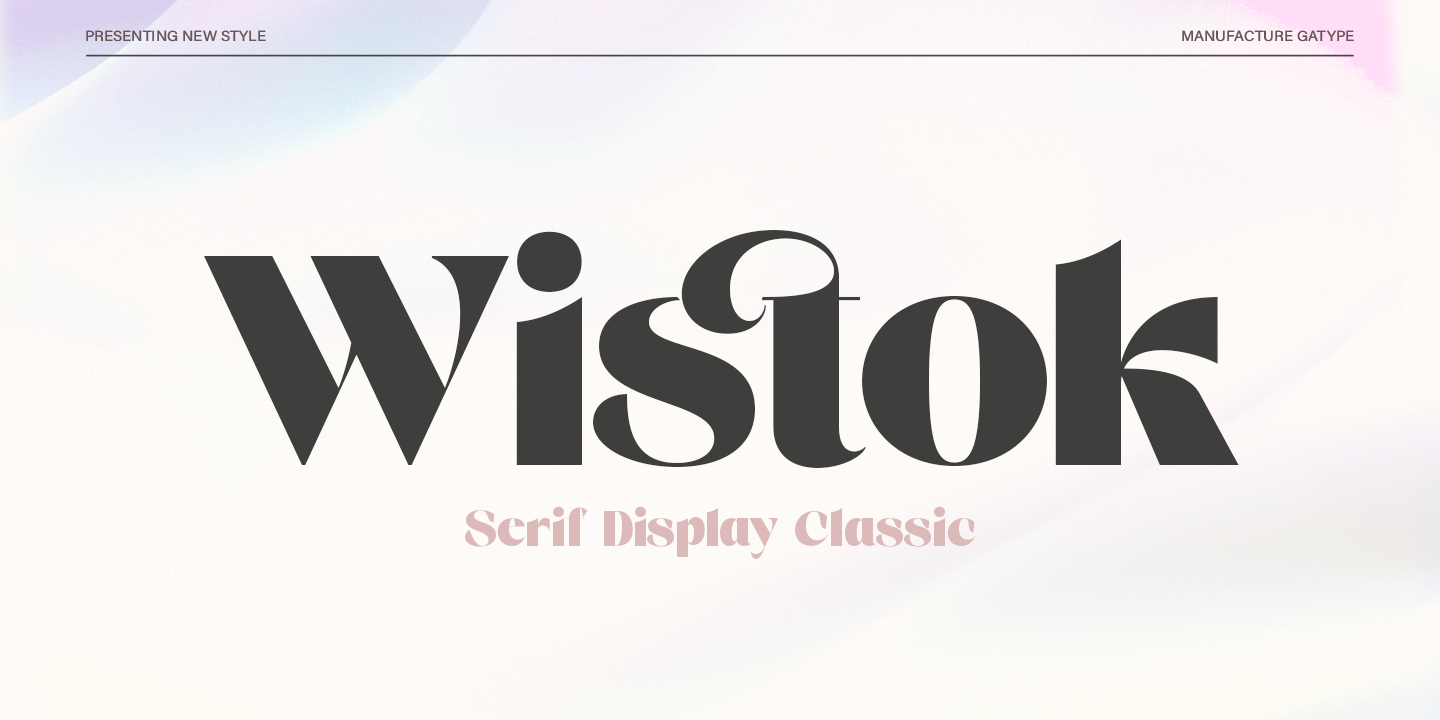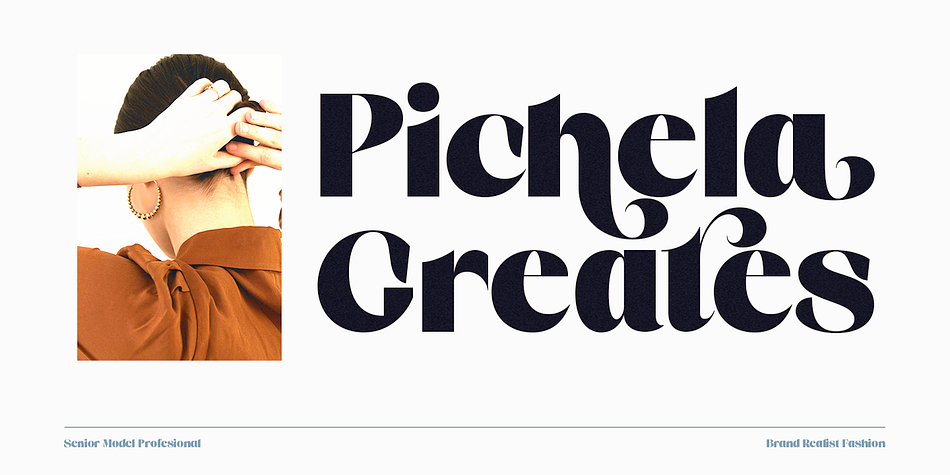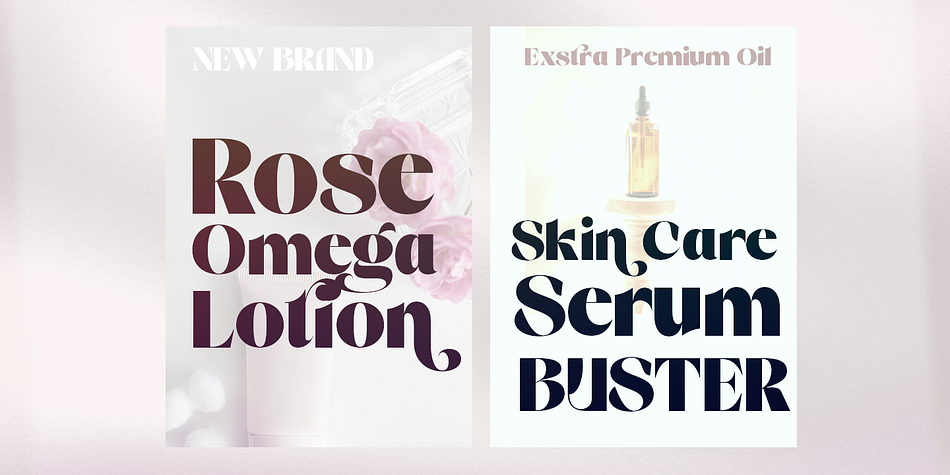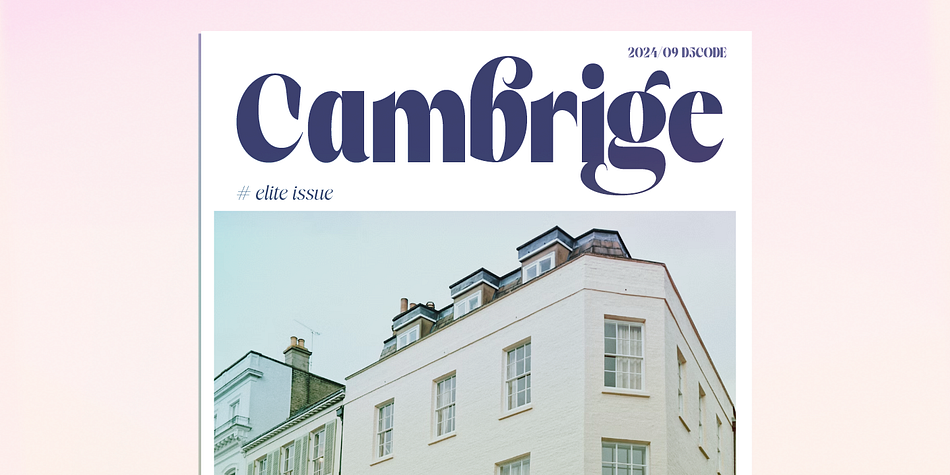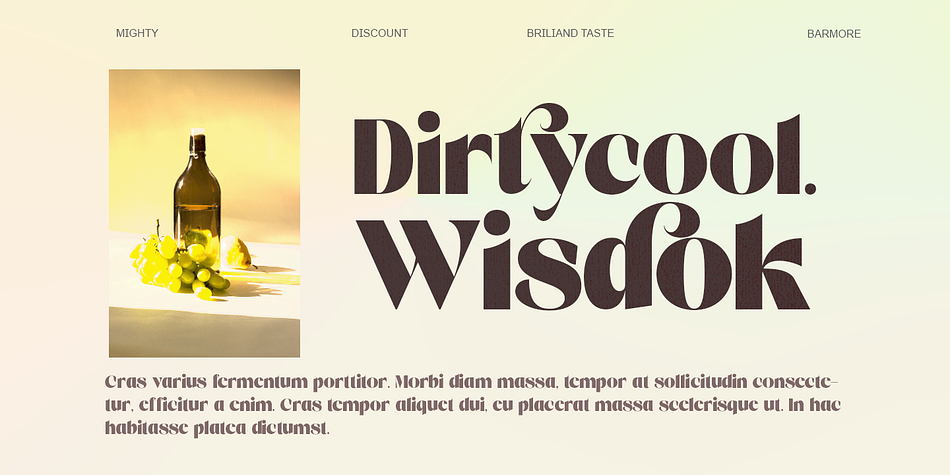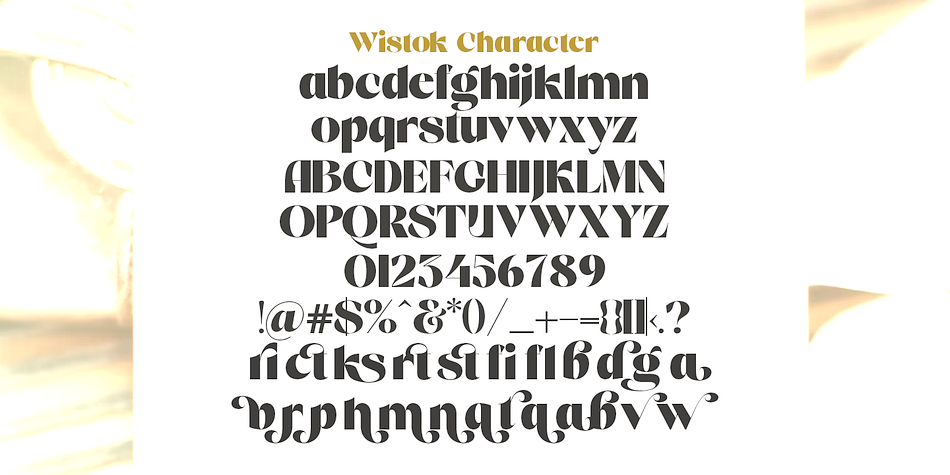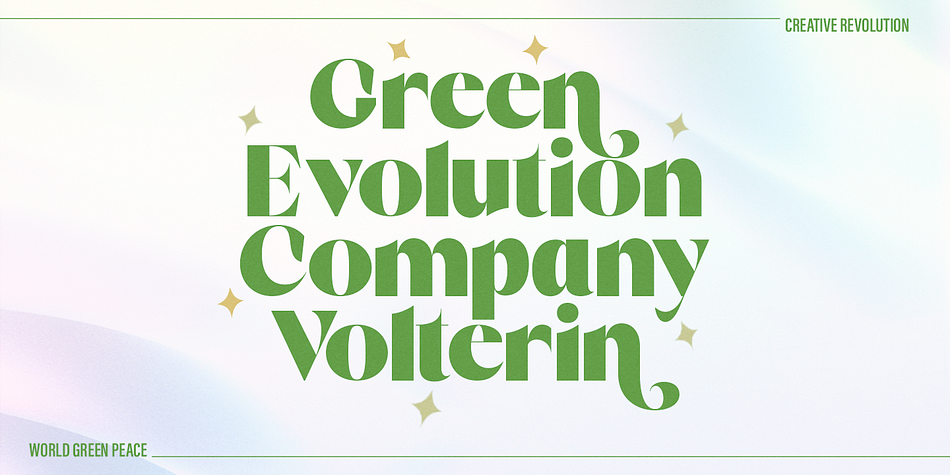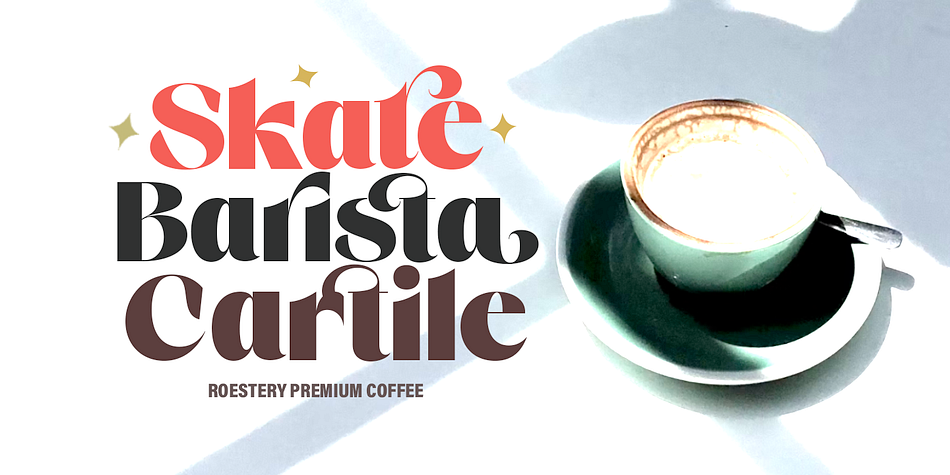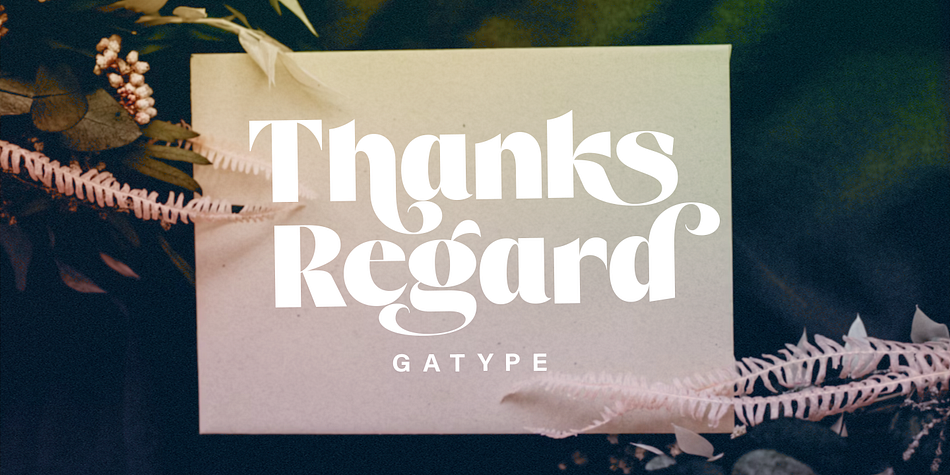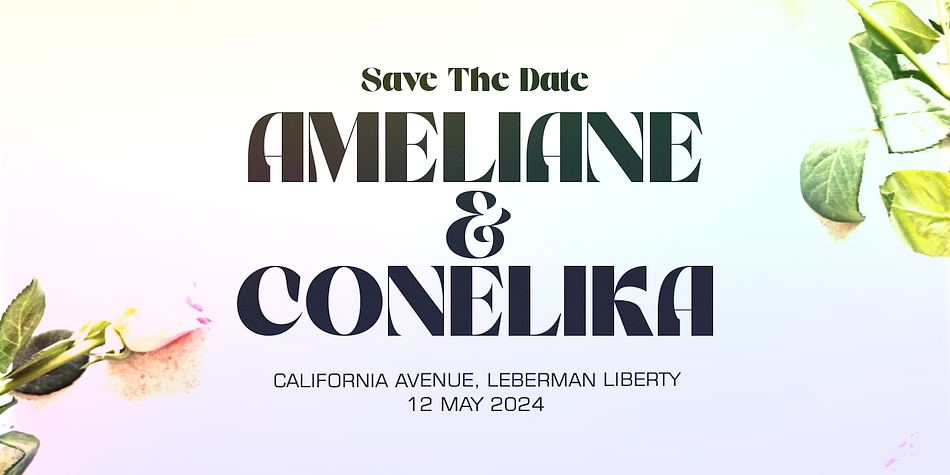
Wistok
Wistok is a display sans font family published by Gatype.
Elegant, graceful and classy. Wistok is a versatile display font with a graceful classic appeal, more alternatives & ligatures, multilingual support.
Each letter has been hand drawn and crafted with great care. The variety of weights provides a variety of options that will help you find the best typographic character for your project. All five weights are well suited for large screen use and high-impact headlines. The alternative styles and bindings available offer a number of different options that give your logo or business card a unique look. Comprehensive language support.